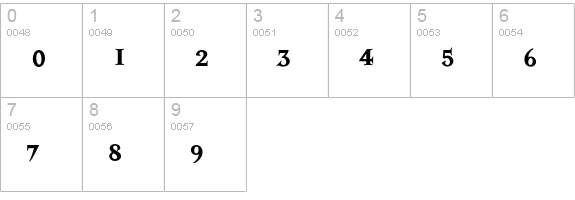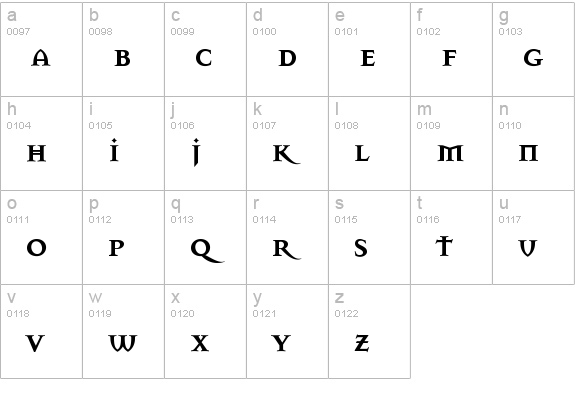
MansonSuperBold Font Details
MansonSuperBold font is a stunning display typeface that exudes strength, elegance, and confidence. Its bold and commanding letterforms are designed to make a lasting impression and grab attention. With its unique and distinctive style, this font is perfect for headlines, logos, posters, and other creative projects that require a touch of boldness. The characters of MansonSuperBold font are meticulously crafted with sharp edges and powerful curves, giving the text a strong and impactful appearance. Each letter is carefully balanced to create a harmonious and visually appealing composition. The font's thick strokes create a sense of solidity and stability, making it ideal for projects that require a strong and authoritative presence. One of the most remarkable aspects of MansonSuperBold font is that it is available to download for free at FontsMarket.com. This means that anyone can access and use this incredible typeface without any cost. Whether you are a designer, a student, or a business owner, MansonSuperBold font offers a valuable resource to enhance your creative endeavors. Downloading MansonSuperBold font from FontsMarket.com is quick and easy. Simply visit the website, search for the font, and click on the download button. Once downloaded, you can install the font on your computer and start using it in your favorite design software. The font is compatible with both Mac and Windows operating systems, ensuring that everyone can enjoy its beauty and versatility. With MansonSuperBold font in your design arsenal, your projects will stand out from the crowd and make a powerful statement. Its bold and commanding presence will captivate your audience and leave a lasting impression. So why wait? Visit FontsMarket.com today and download MansonSuperBold font for free to unleash your creativity and make a bold statement in your designs.